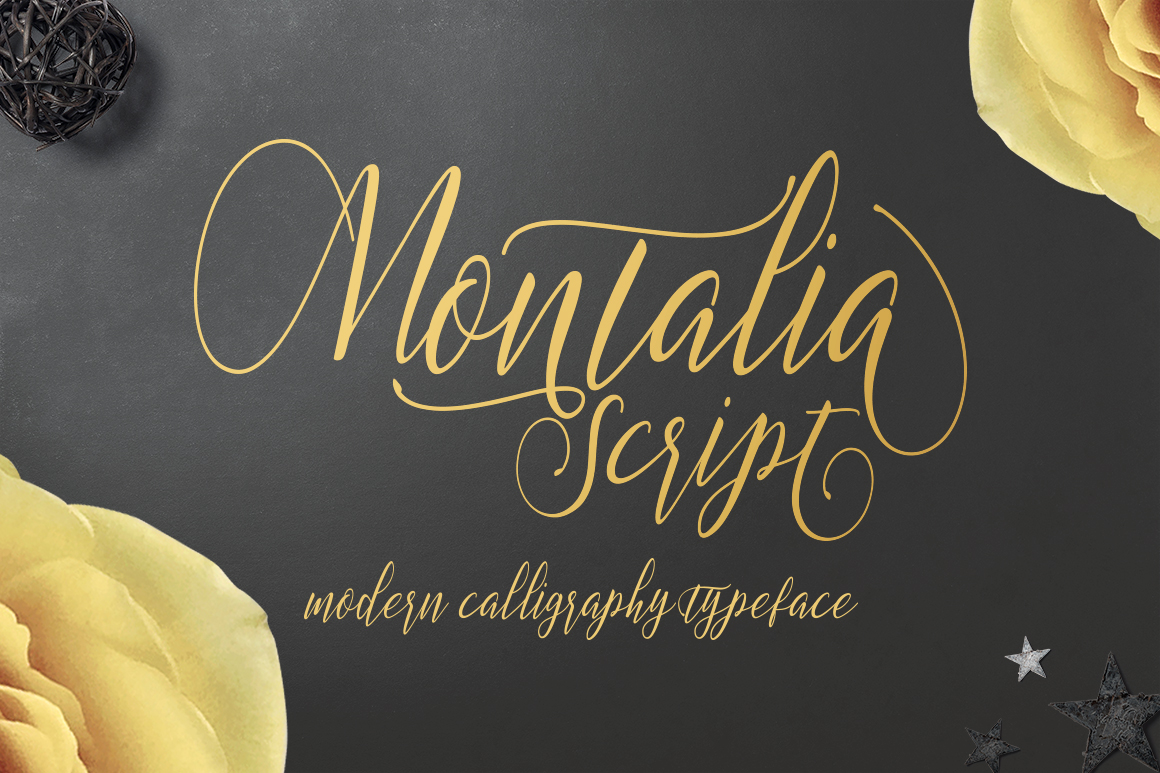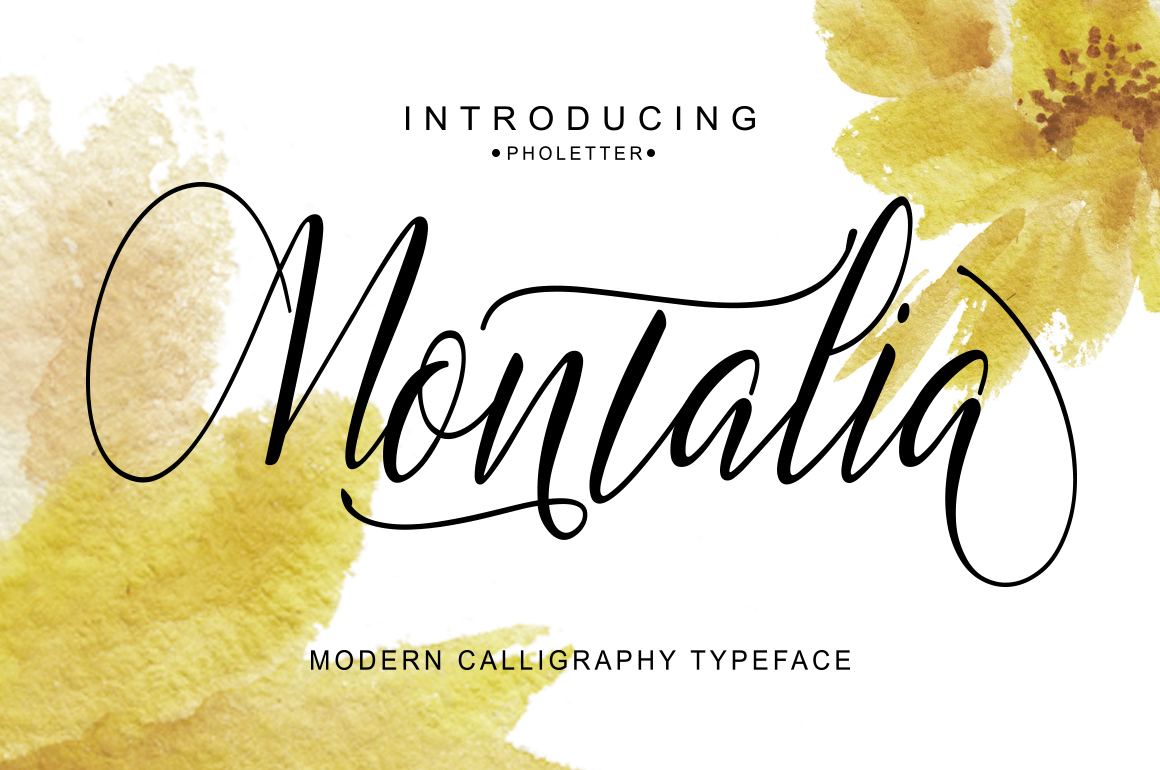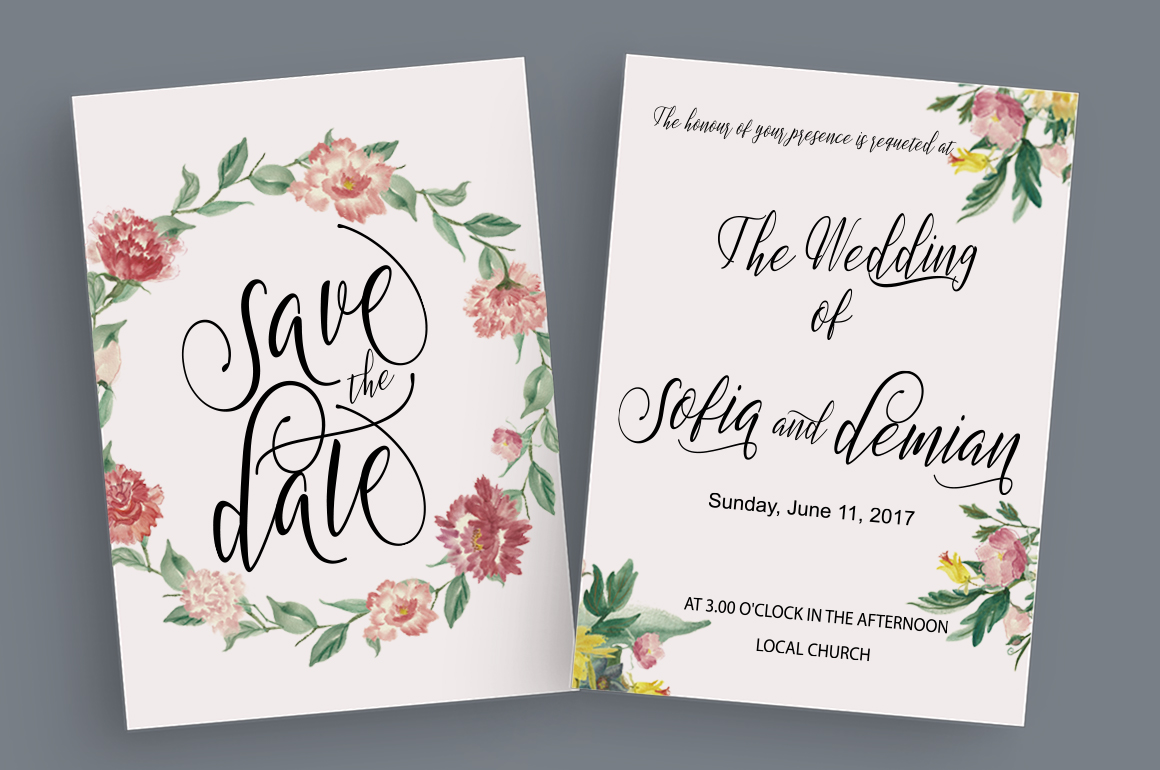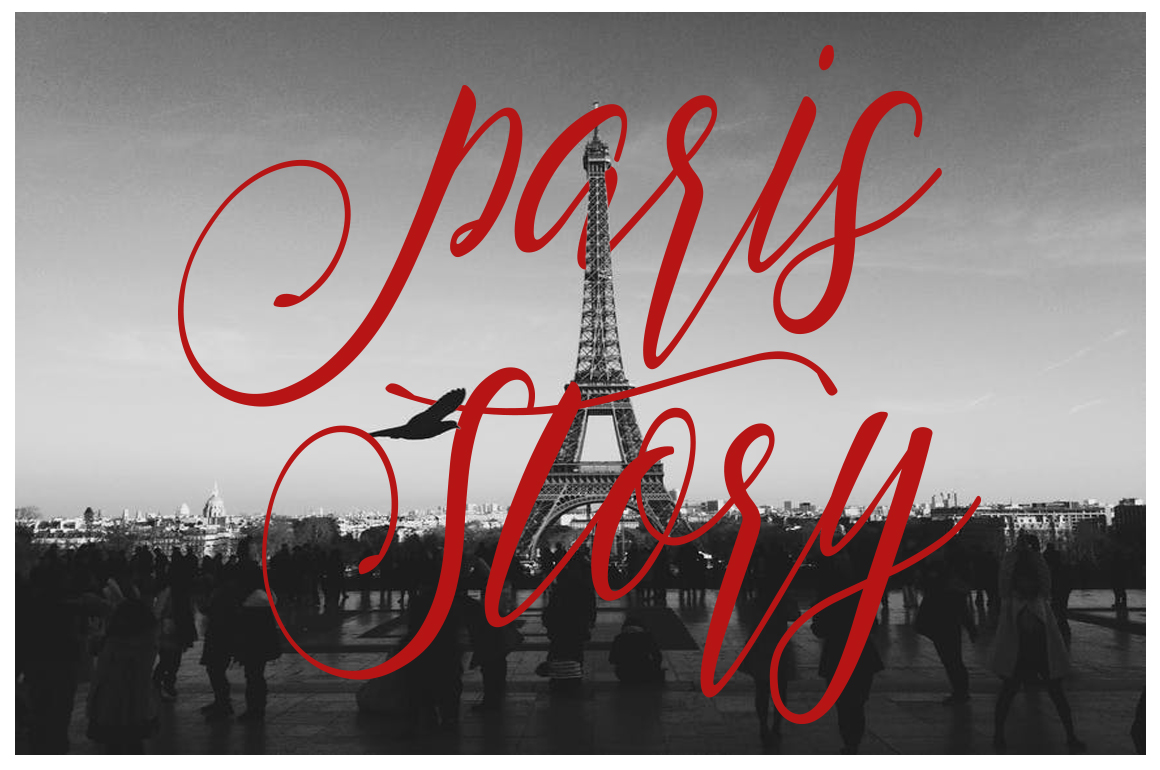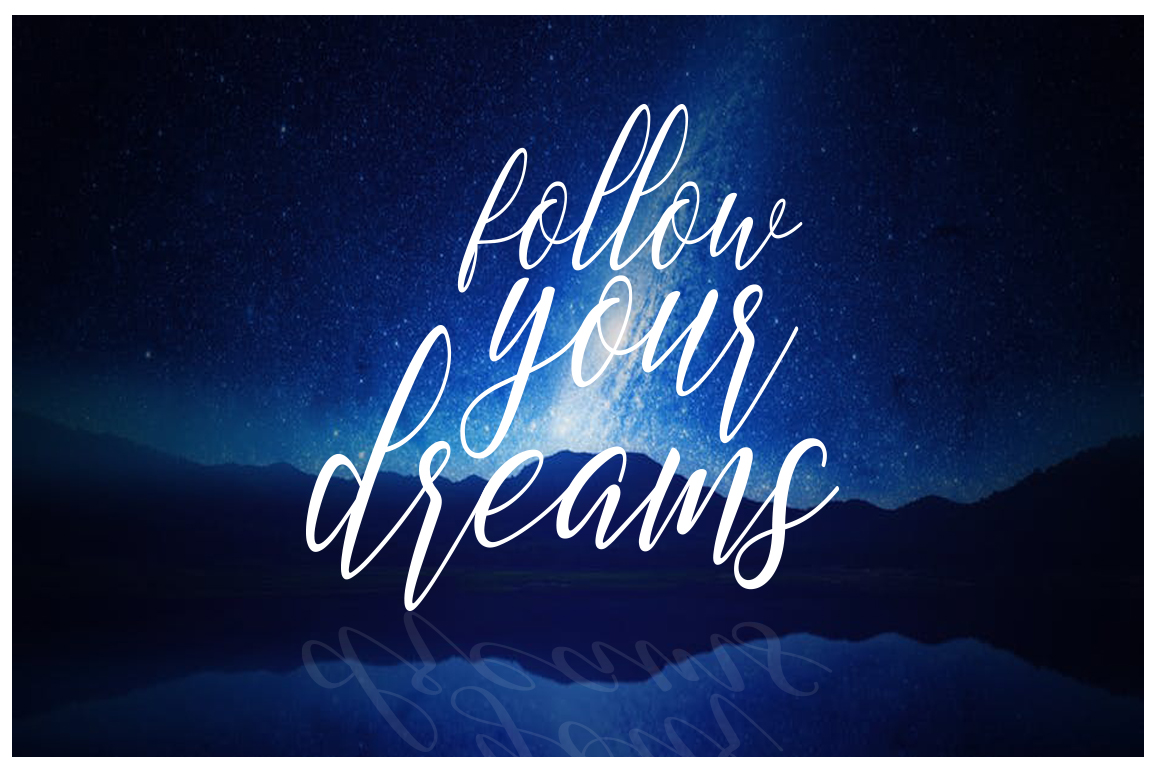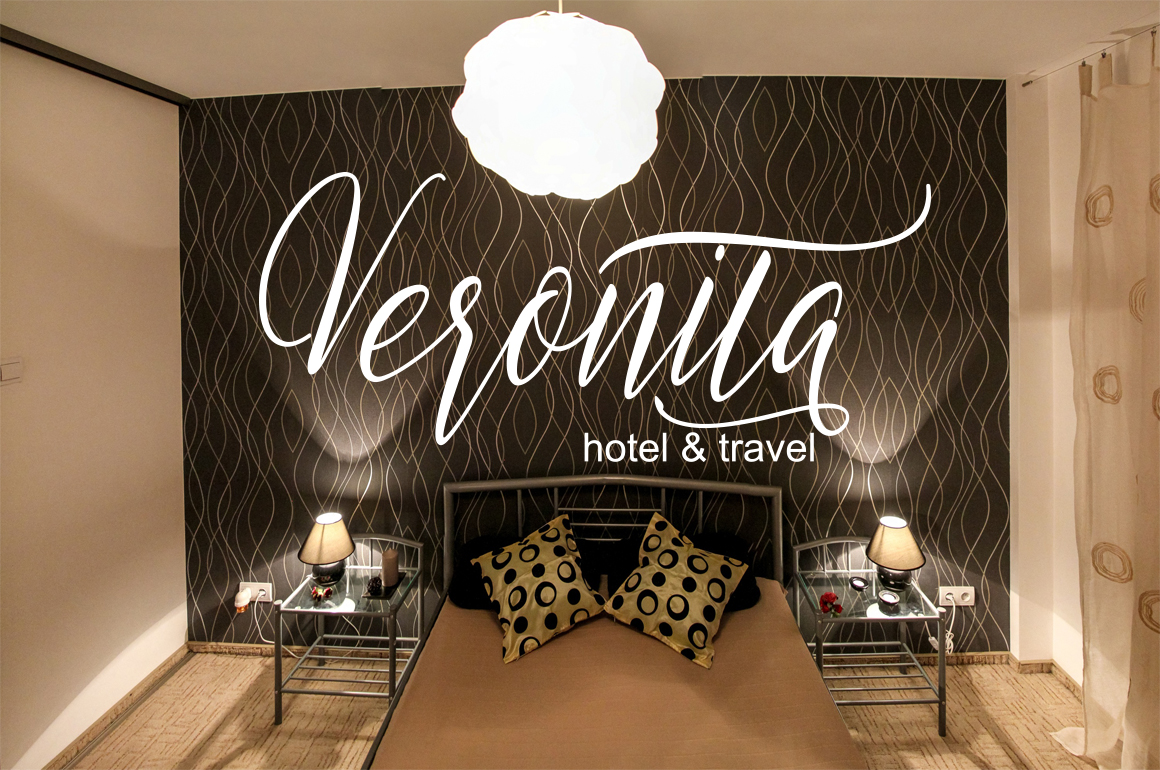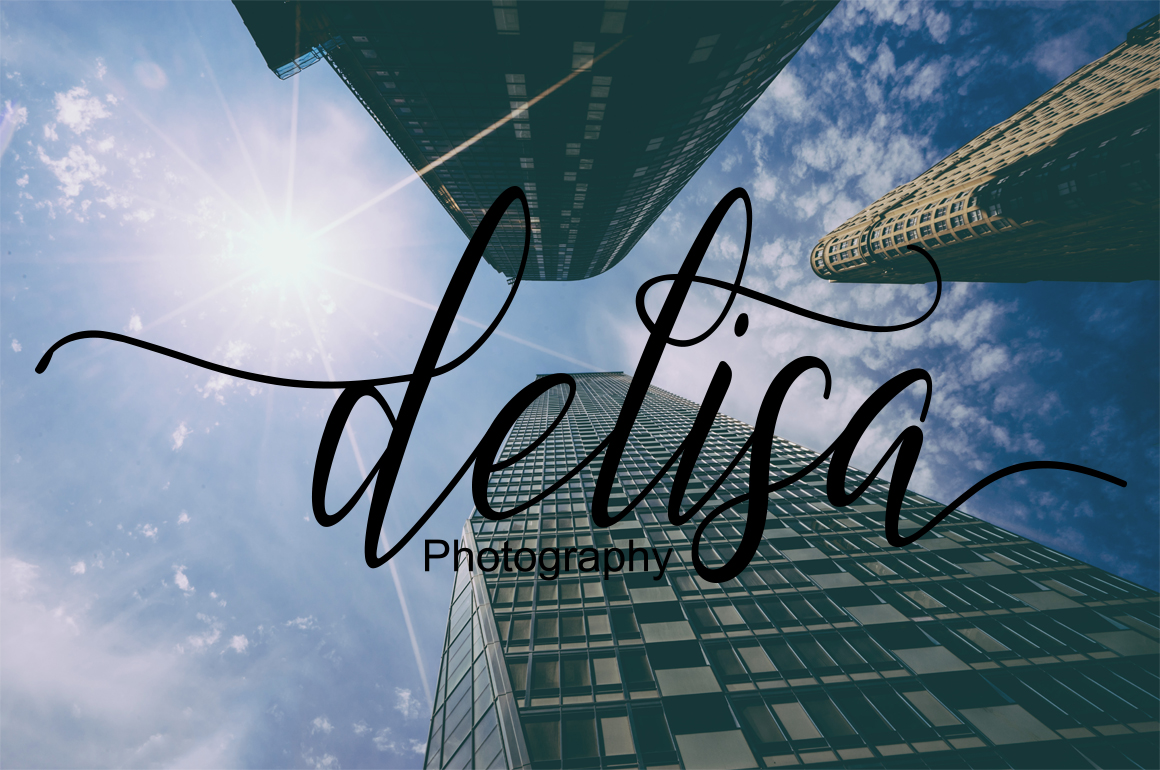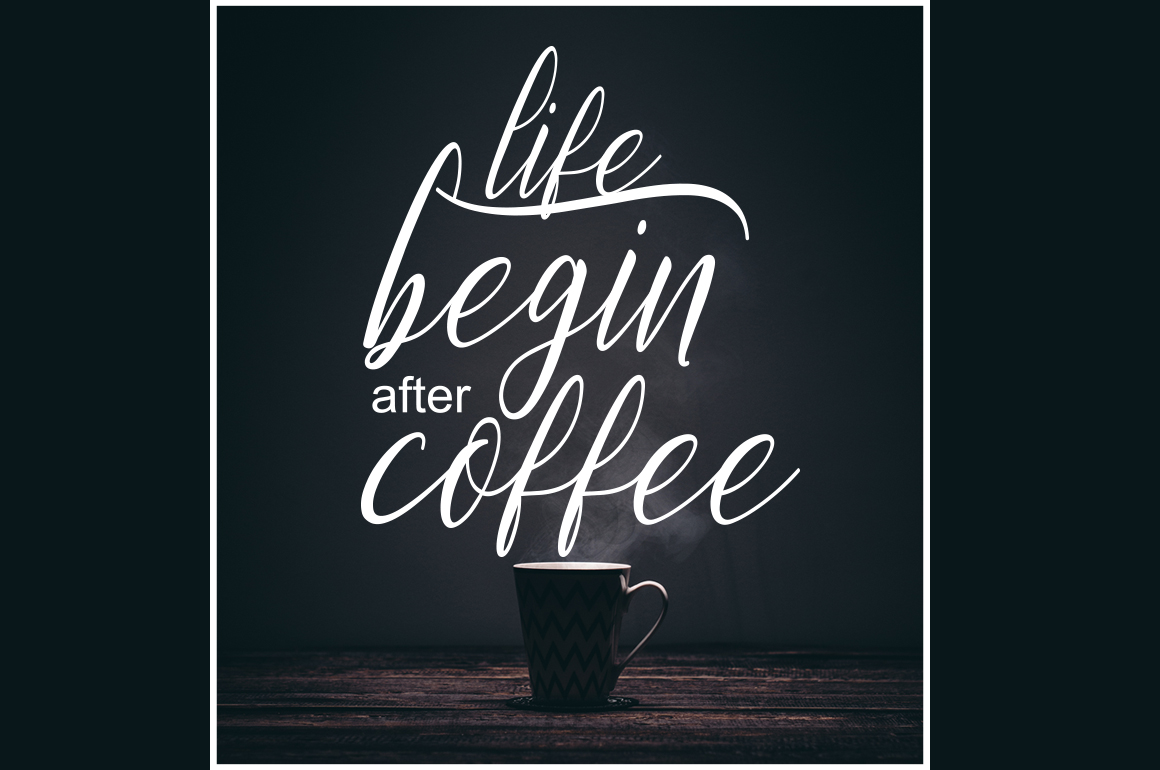
Montalia Script Font
About Montalia Script Font
A modern handwritten calligraphy font. This stunning script is suitable for a great range of different projects.